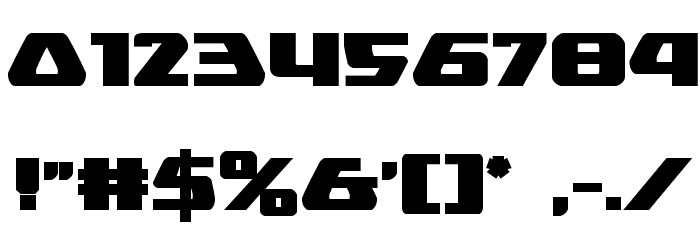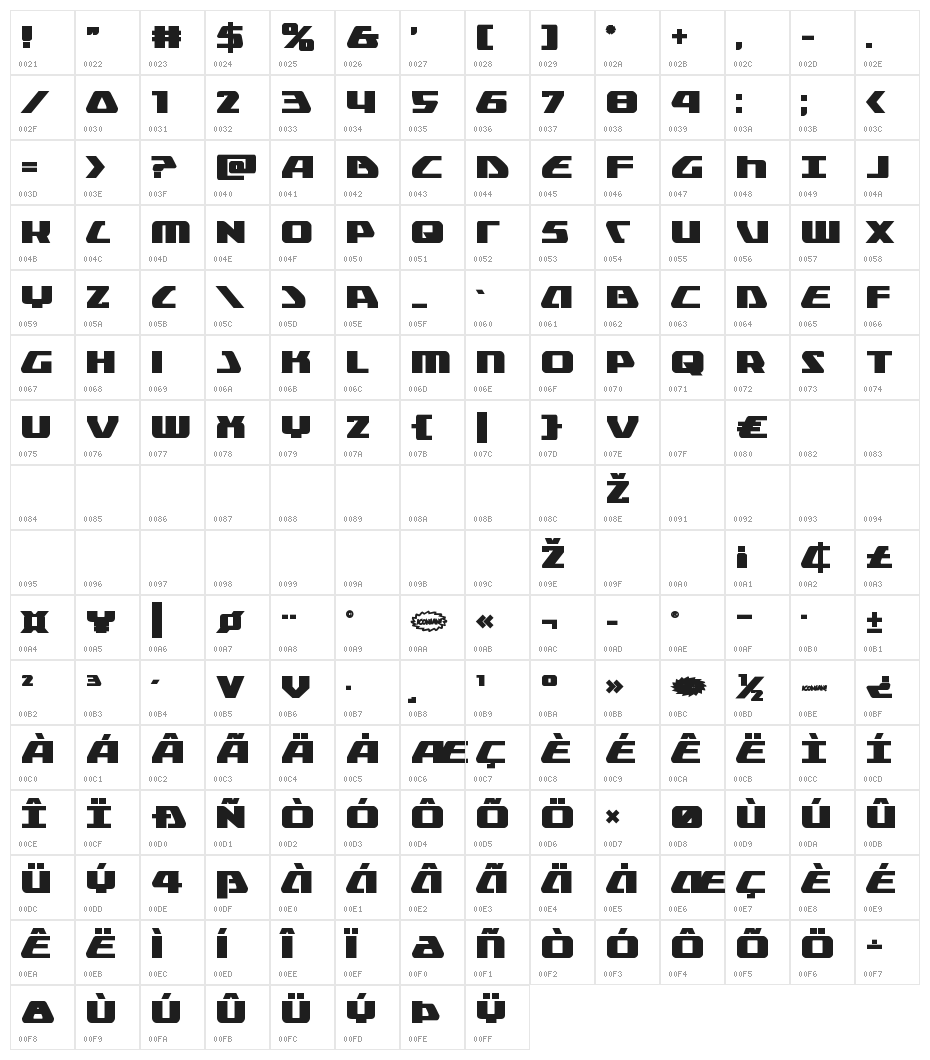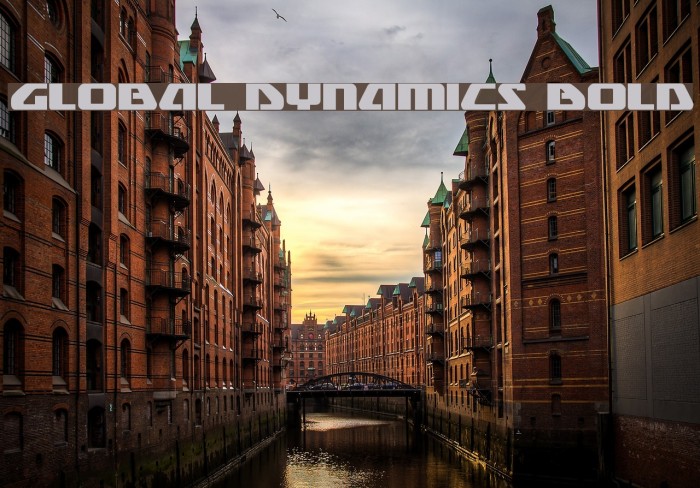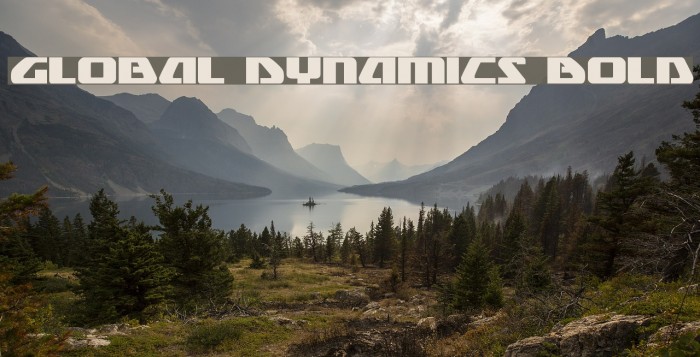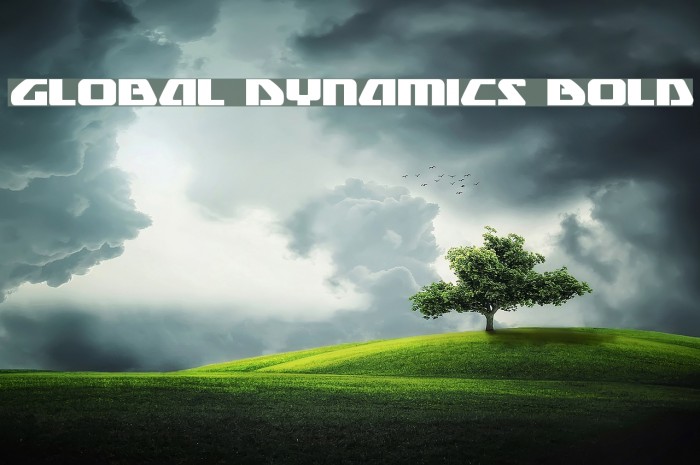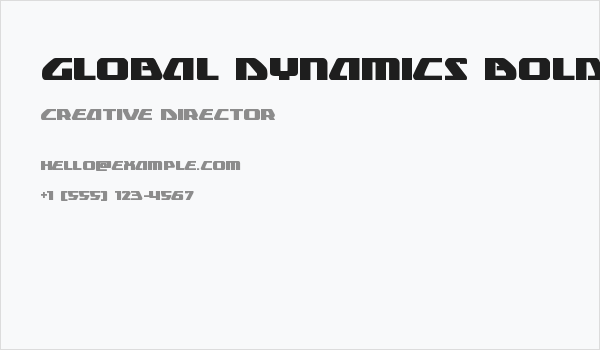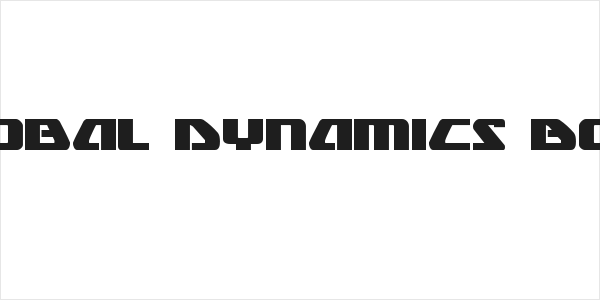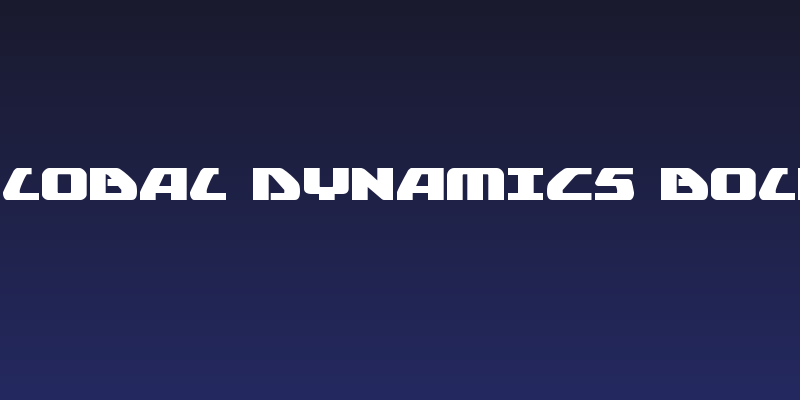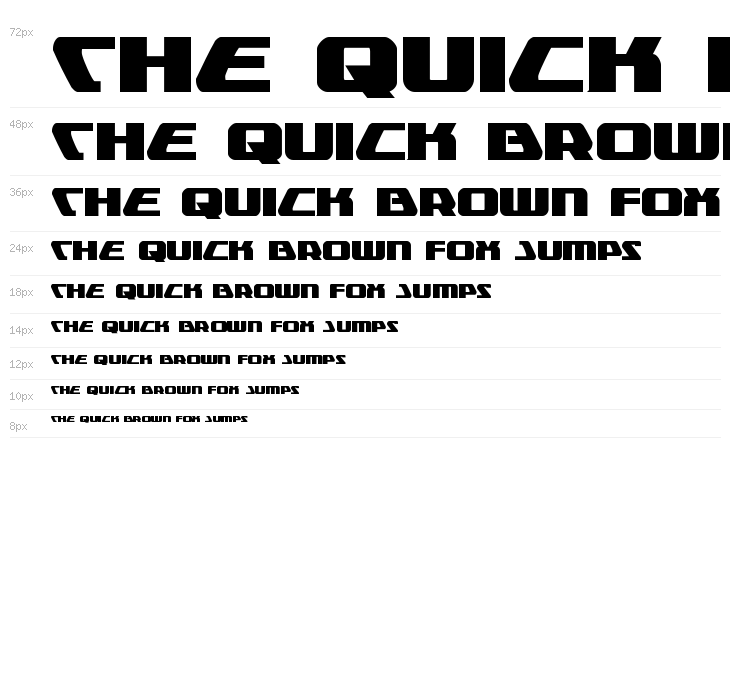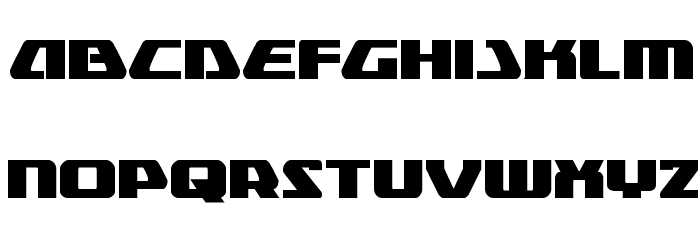
Global Dynamics Bold Font
Global Dynamics Bold Description
This font features a bold, geometric design with a futuristic and dynamic appearance. The characters are constructed with sharp angles and straight lines, creating a sense of movement and energy. The uppercase and lowercase letters maintain a consistent style, with a strong emphasis on symmetry and balance. The numbers and special characters follow the same design principles, ensuring a cohesive look across all glyphs. The font's bold weight and unique style make it ideal for attention-grabbing headlines and modern design projects.
| Proposed Projects | Ideal for sci-fi themed designs, technology branding, video game titles, and futuristic posters. |